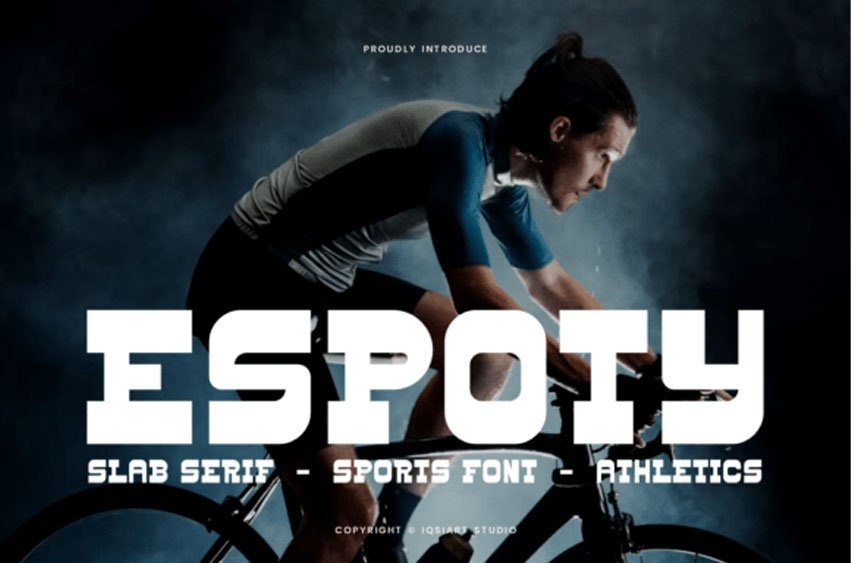
Espoty Font Unleash high-octane energy and athletic power with Espoty, a premium sports slab serif font! An essential tool for competitive visual branding,
Espoty serves as a premier centerpoint asset for college varsity logos, professional sports team jerseys, e-sports gaming titles, fitness gym signs, and modern athletic apparel graphics.